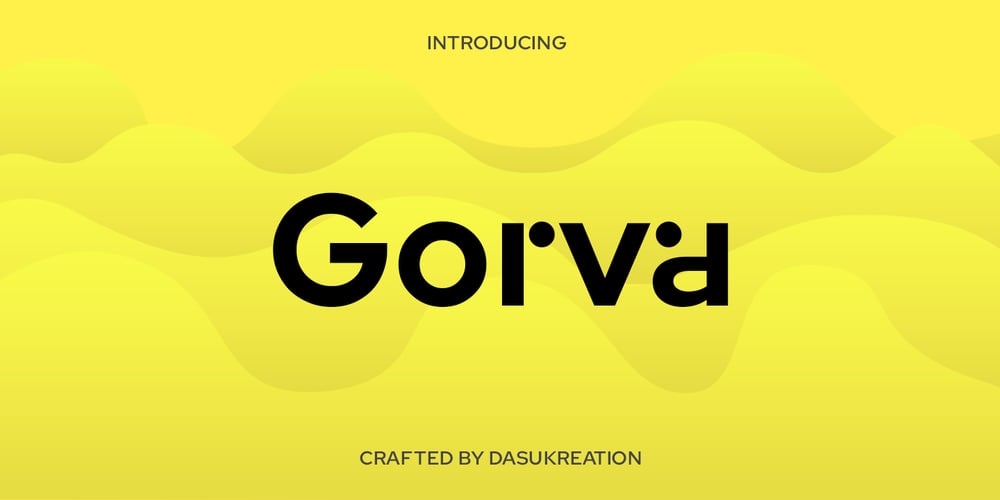
Gorva Font Family was designed by Dadan Sukma Nurdiansyah and published by Dasukreation. Gorva contains 8 styles and family package options. Gorva is a geometric sans serif typeface affected by other geometric sans like Product Sans and Avenir. There are more 400 glyphs with special characters with circles on a, g, and r. All special characters are PUA Encoded, which means that you can access all special characters through Windows and Mac and that you can load them into any application. This typeface is suitable for many projects, such as designing for print and digital media. Also supports multilingual languages from Western European to Eastern European.